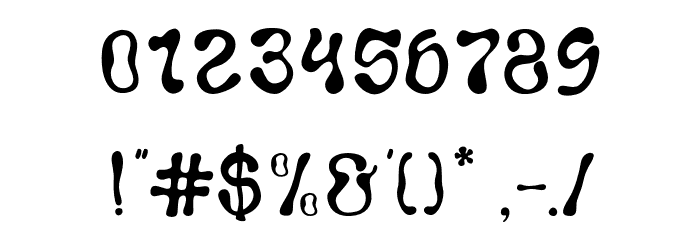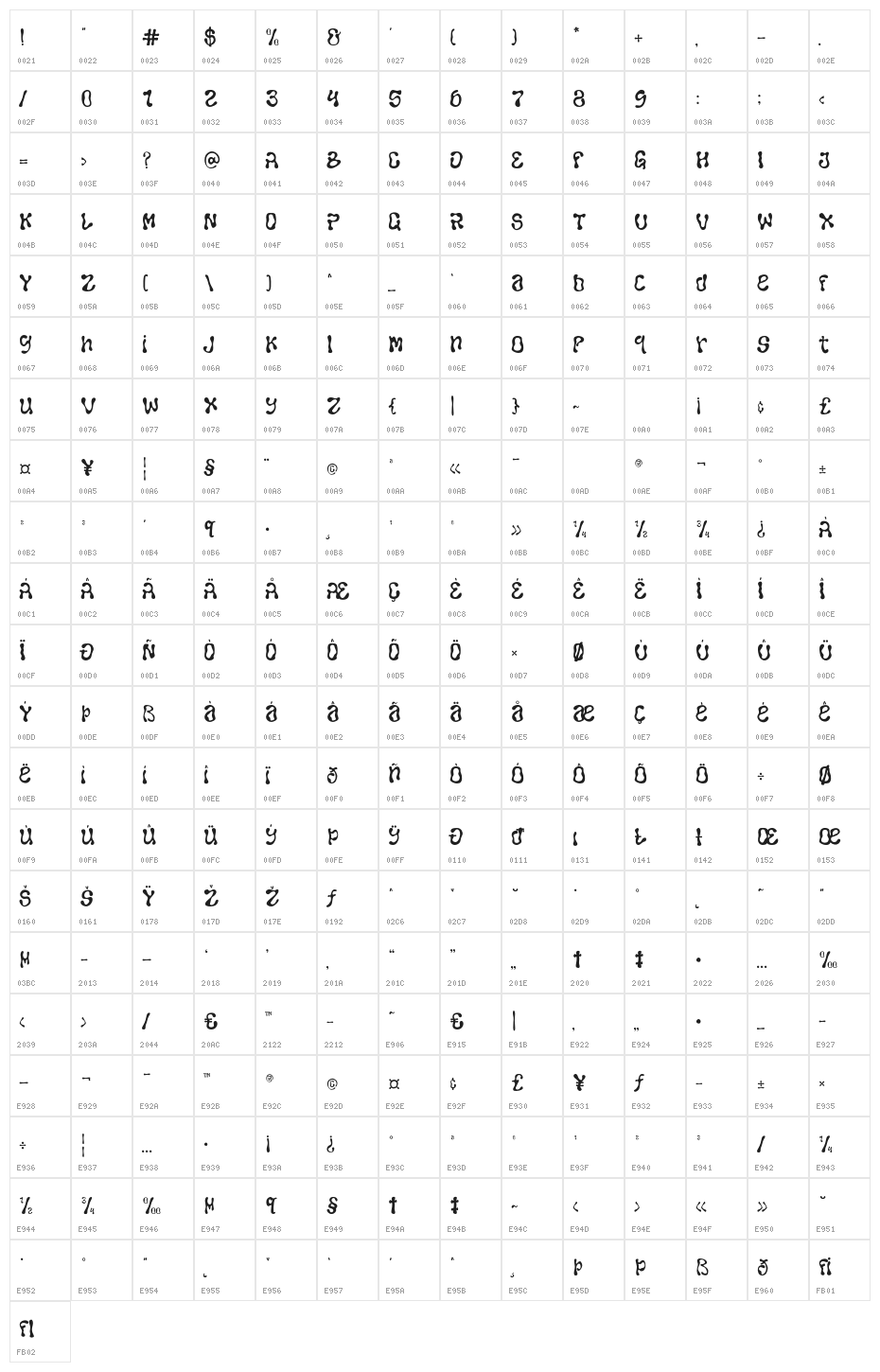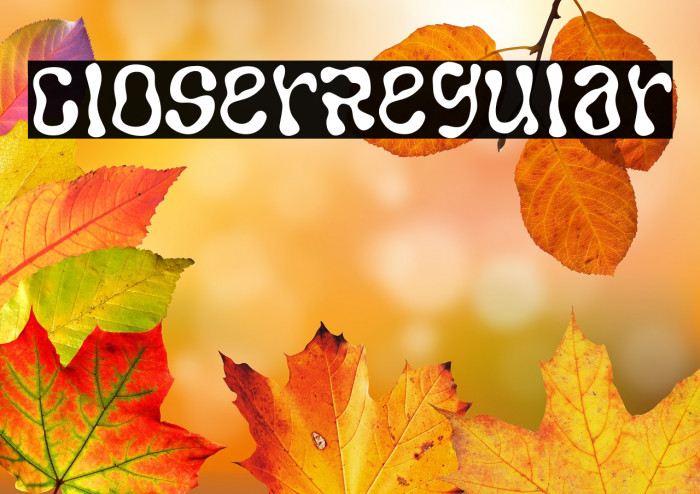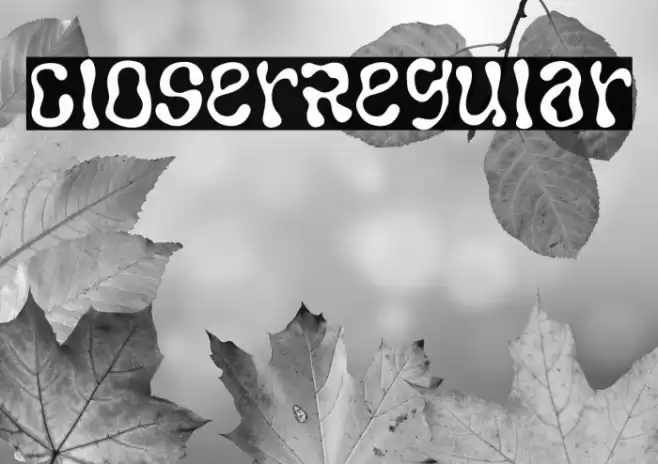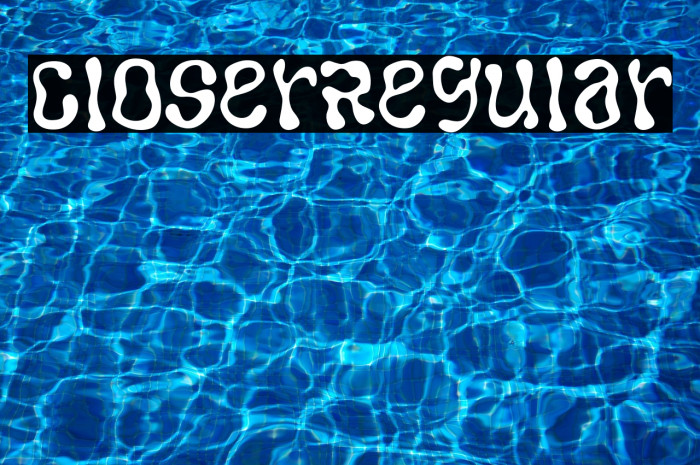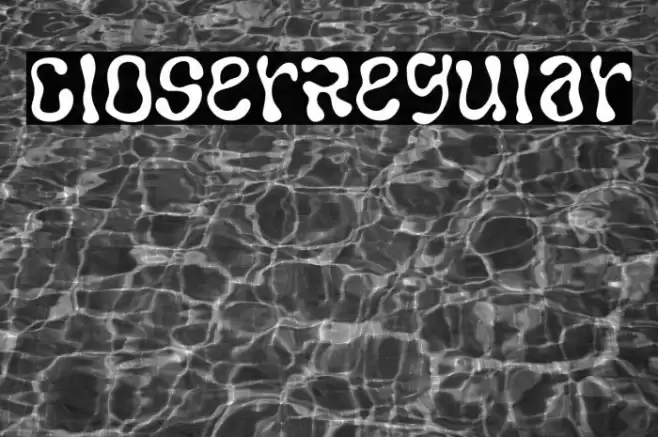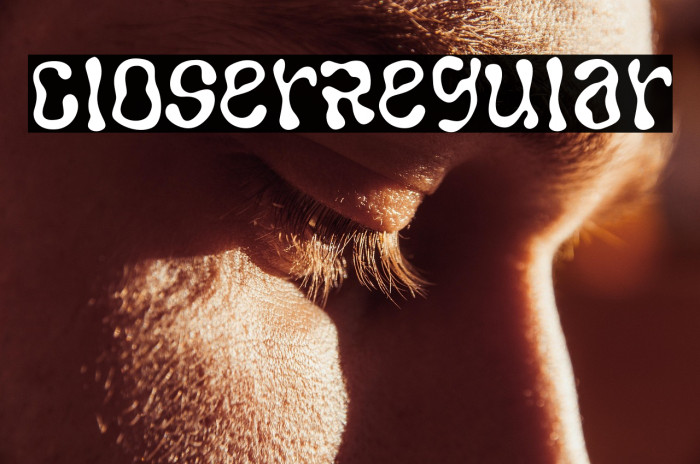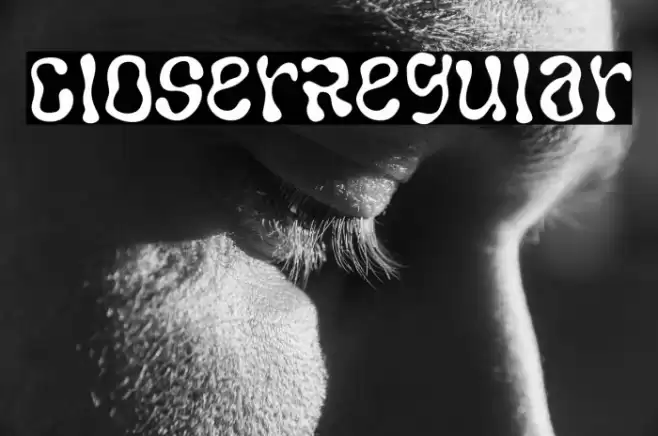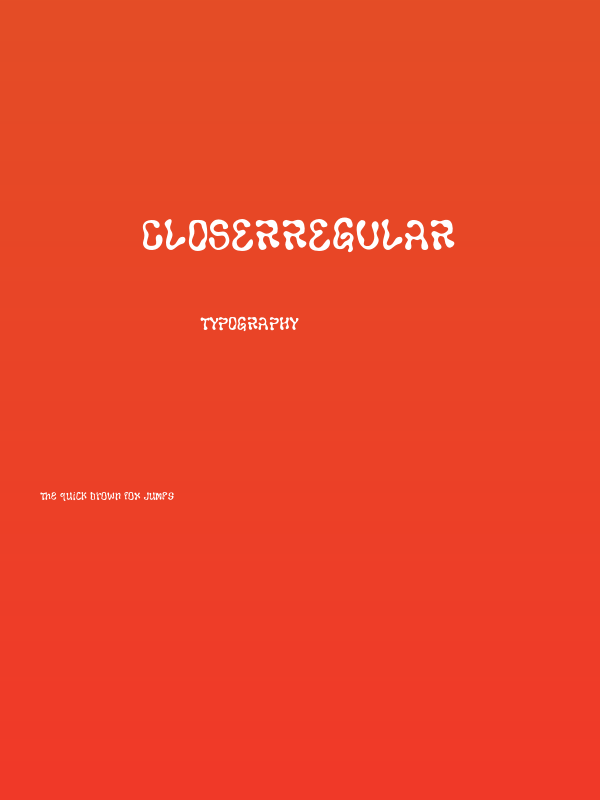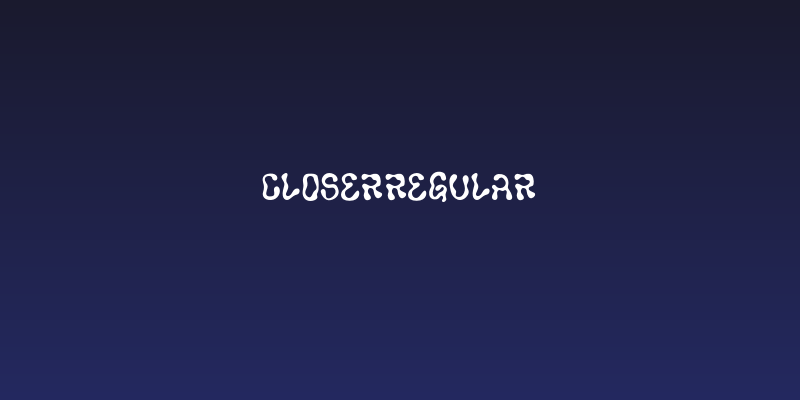
CloserRegular Font
CloserRegular Description
This font features a unique and playful design with a wavy, fluid appearance. The characters have an organic, almost liquid-like quality, giving them a sense of movement and dynamism. The bold strokes and irregular shapes create a distinctive look that stands out, making it ideal for creative and artistic projects. The uppercase and lowercase letters maintain a consistent style, while the numbers and special characters complement the overall aesthetic. This font is perfect for adding a whimsical touch to any design.
| Proposed Projects | Ideal for creative projects, artistic designs, children's books, and playful branding. |